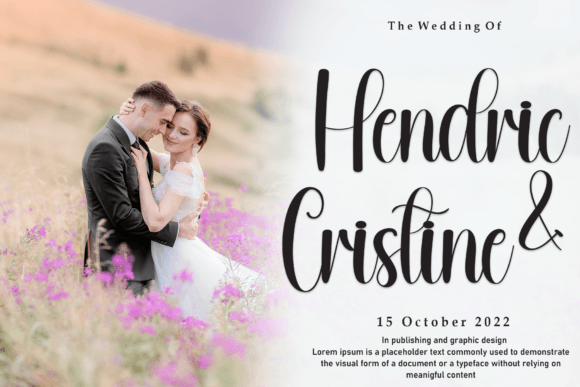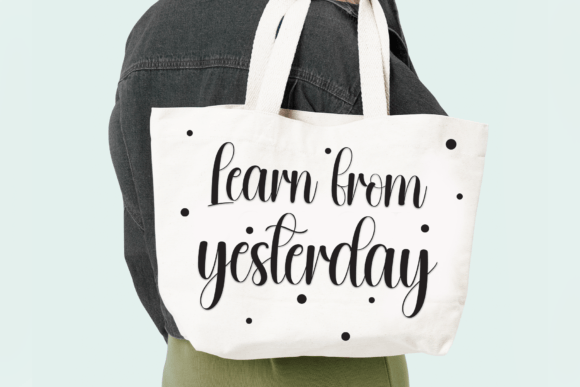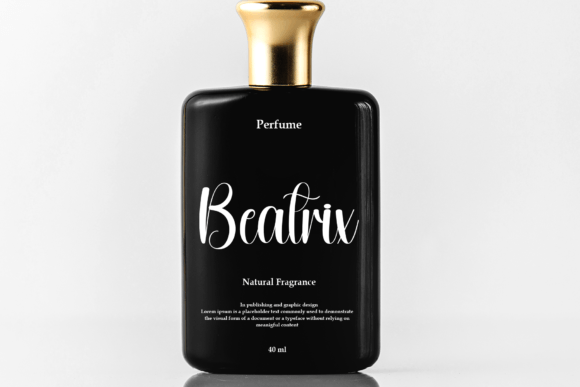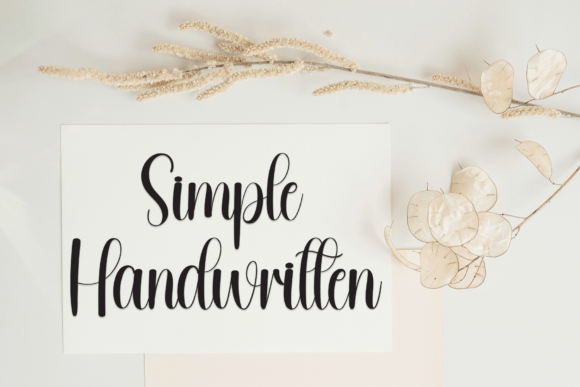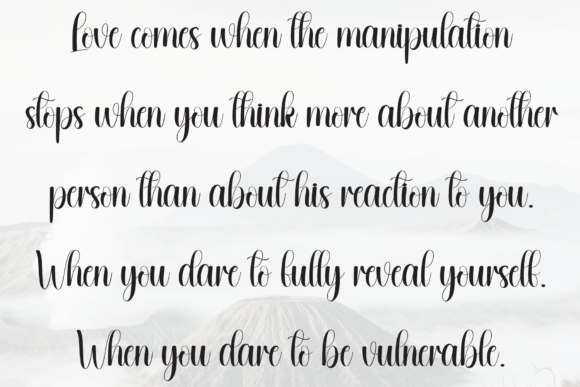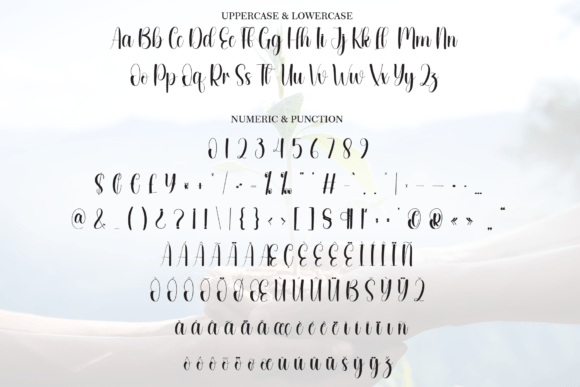
Introducing Beginning Font: Add a Sweet and Friendly Touch to Your Designs
Are you looking for a font that can add a playful and charming touch to your designs? Look no further than Beginning font! This sweet and friendly handwritten display font is perfect for creating eye-catching wedding invitations, cards, and other designs that require a fun and whimsical feel. In this article, we’ll explore the features and benefits of Beginning font, and show you how to make the most of this beautiful font in your designs.
What is Beginning Font?
Beginning font is a handwritten display font that is designed to bring a touch of warmth and personality to your designs. With its cute and fun style, this font is ideal for creating designs that require a playful and whimsical feel. Whether you’re designing wedding invitations, cards, or other paper crafts, Beginning font is the perfect choice.
Key Features of Beginning Font
- Cute and Fun Style: Beginning font has a sweet and friendly style that is perfect for creating designs that require a playful touch.
- Handwritten Display Font: This font is designed to be used as a display font, making it perfect for headings, titles, and other design elements that require a bold and eye-catching style.
- Versatile: Beginning font can be used for a wide range of design projects, including wedding invitations, cards, paper crafts, and more.
- Easy to Read: Despite its playful style, Beginning font is easy to read, making it perfect for designs that require a clear and legible font.
Uses for Beginning Font
Beginning font is a versatile font that can be used for a wide range of design projects. Here are some ideas for using this beautiful font:
- Wedding Invitations: Beginning font is perfect for creating beautiful and unique wedding invitations that set the tone for a special day.
- Cards: Whether you’re creating birthday cards, thank you cards, or other types of cards, Beginning font is a great choice.
- Paper Crafts: Beginning font can be used for a wide range of paper crafts, including scrapbooking, journaling, and more.
- Signs and Banners: This font is also great for creating signs and banners that require a bold and eye-catching style.
Tips for Using Beginning Font
Here are some tips for using Beginning font in your designs:
- Use it as a Display Font: Beginning font is designed to be used as a display font, so use it for headings, titles, and other design elements that require a bold and eye-catching style.
- Experiment with Colors: Beginning font looks great in a wide range of colors, so don’t be afraid to experiment and find the perfect color for your design.
- Pair it with Other Fonts: Beginning font can be paired with other fonts to create a unique and interesting design. Try pairing it with a serif font for a classic look or a sans-serif font for a modern look.
Beginning font is a beautiful and versatile font that can add a sweet and friendly touch to your designs. With its cute and fun style, this font is perfect for creating eye-catching wedding invitations, cards, and other designs that require a playful and whimsical feel. Whether you’re a designer or a crafter, Beginning font is a great choice for any design project. So why not give it a try and see how it can enhance your designs?